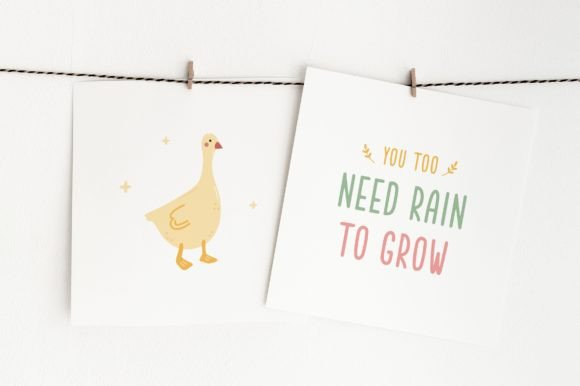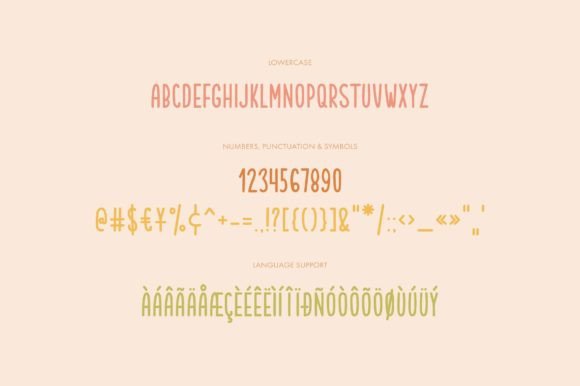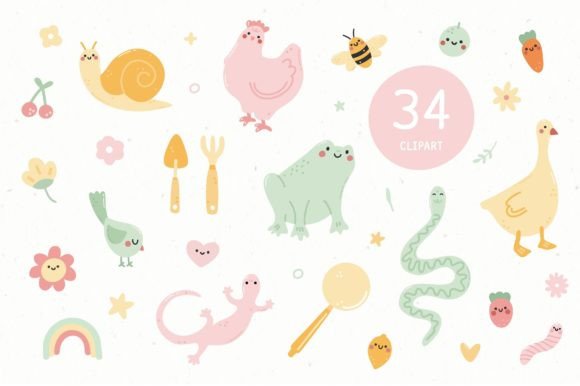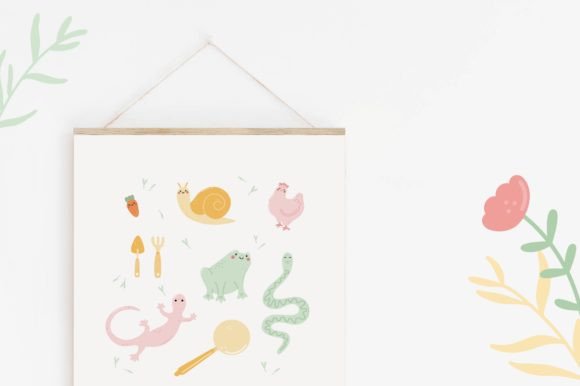
Introduction to Garden Friends Font
As a designer, have you ever found yourself in a creative rut, searching for the perfect font to elevate your next project? I’m sure you’ve spent hours scrolling through font libraries, only to end up with a generic, cookie-cutter option that just doesn’t quite fit the vibe you’re going for. That’s why I’m excited to introduce you to the charming Garden Friends Font – a friendly and playful display font that’s sure to bring a smile to your face.
Whether you’re working on a children’s book, a baby shower invitation, or a fun poster for a garden-themed event, the Garden Friends Font is the perfect design resource to bring your creative project to life. With its high-quality, transparent background and versatility, this font is a valuable addition to any designer’s toolkit.
Garden Friends Font
- Features a playful and whimsical design style suitable for garden-themed projects or children’s materials.
Honest Review: Garden Friends Font
I recently came across the Garden Friends Font and was excited to dive in and explore its potential for my next creative project. As a designer, I appreciate a good design resource that can bring a unique touch to my work.
What works well with this font is its high quality and versatility. The Garden Friends Font features a range of characters, including letters, numbers, and symbols, making it a great choice for a variety of applications. I also appreciate the transparent background, which allows me to easily layer it over other design elements.
- ✨ Wide range of characters, including letters, numbers, and symbols
- ✨ High quality and clear typography
One limitation of the Garden Friends Font is its limited font sizes, which may make it less suitable for larger-scale designs. Additionally, the font’s style may not be to everyone’s taste, so it’s worth considering your audience and design goals before using it.
Overall, I’m impressed with the Garden Friends Font and would recommend it to designers looking for a high-quality, unique font for their next creative project.
Common Use Cases for the Garden Friends Font
The Garden Friends Font is a versatile design resource that can be used in a variety of creative projects, including: children’s books, educational materials, marketing materials, and more. It’s also a great choice for creating invitations, posters, and other visual materials.